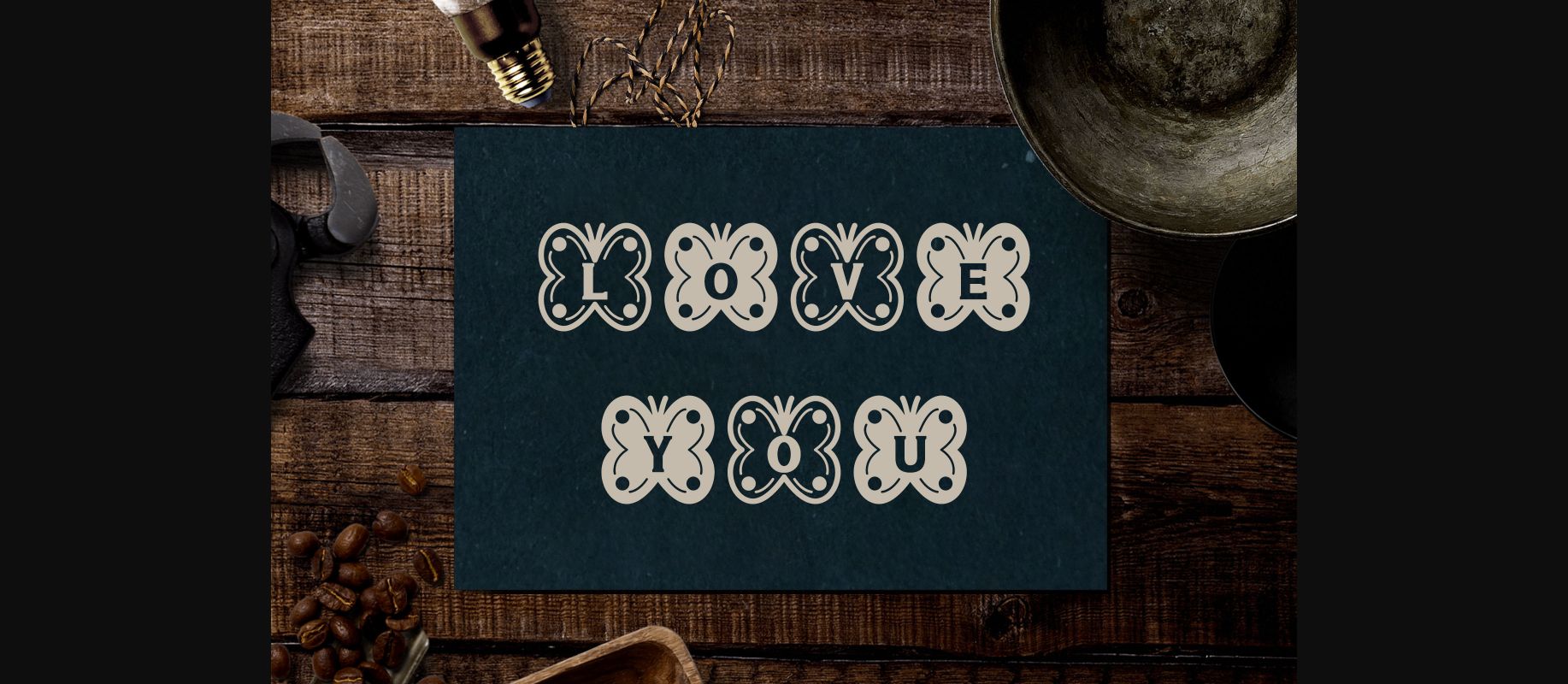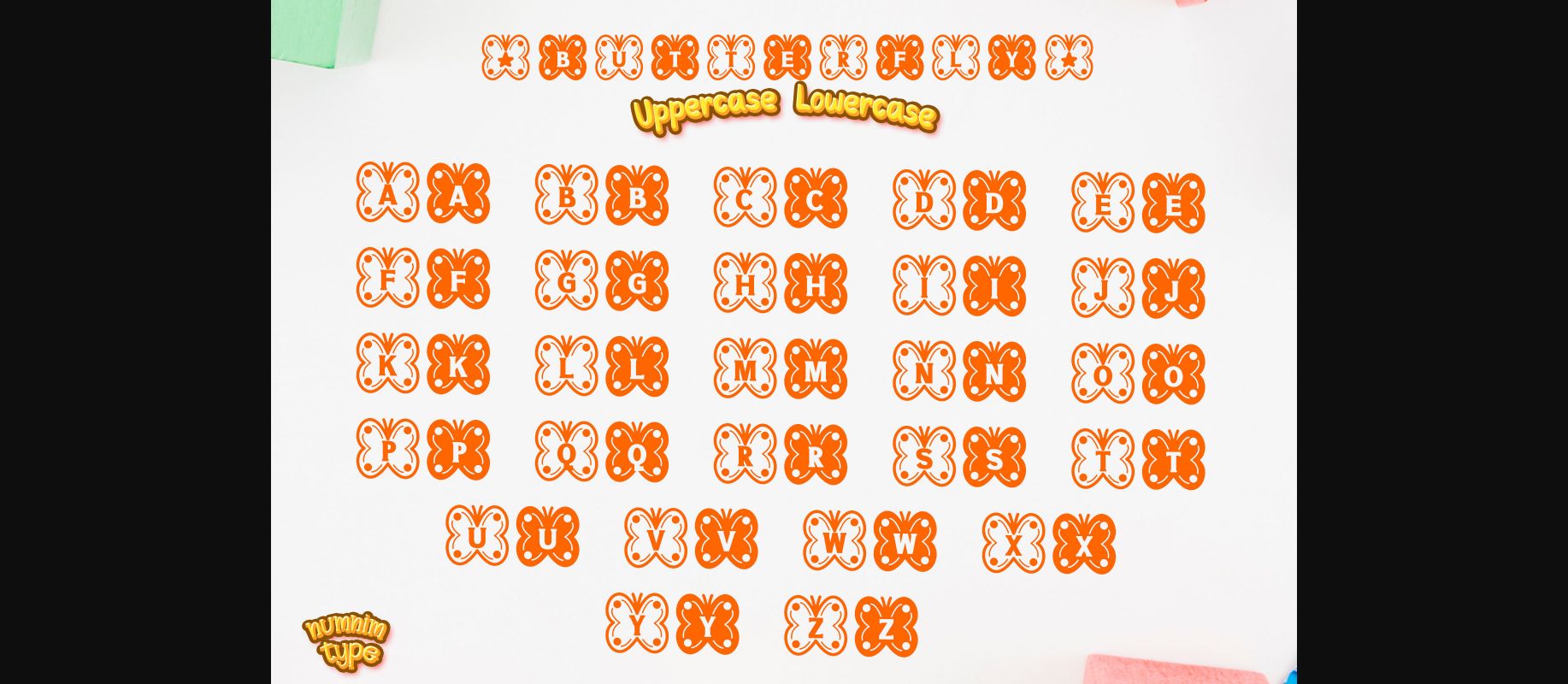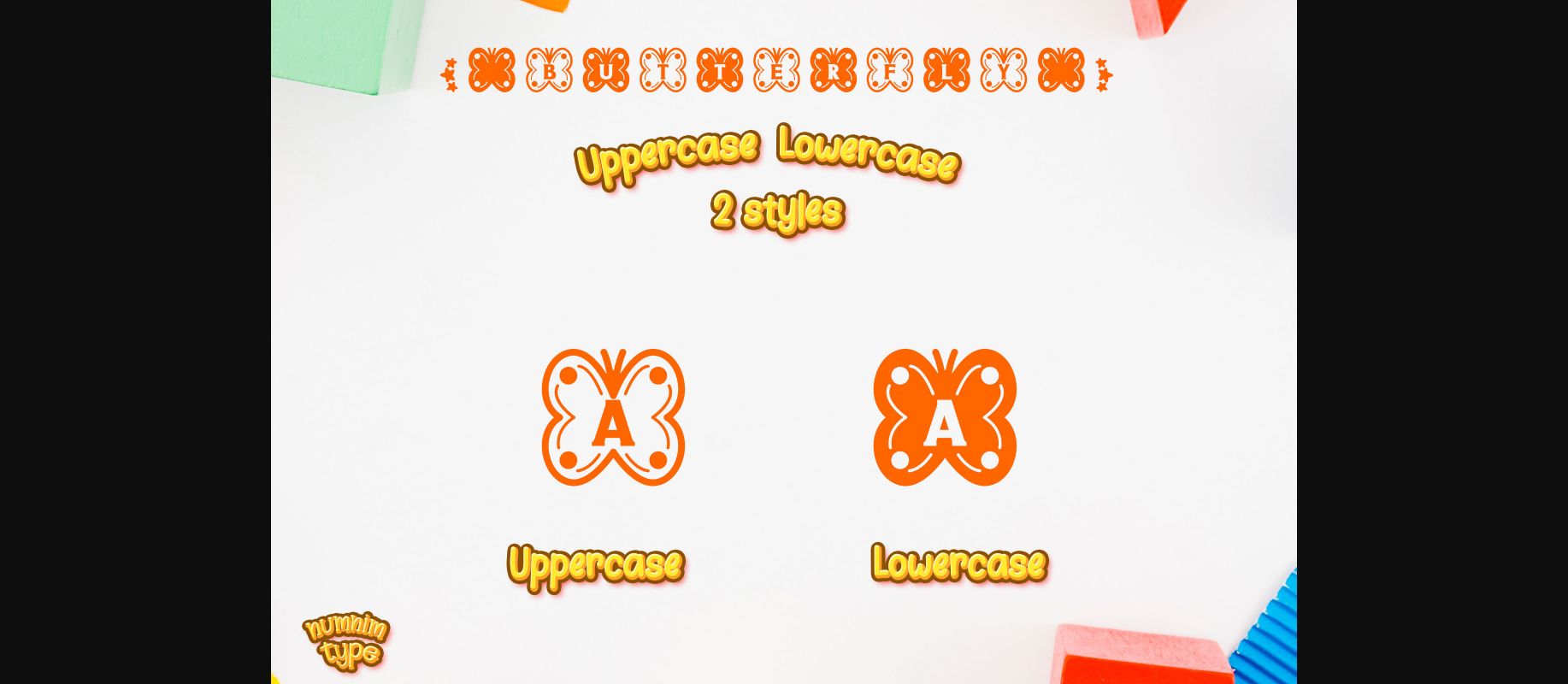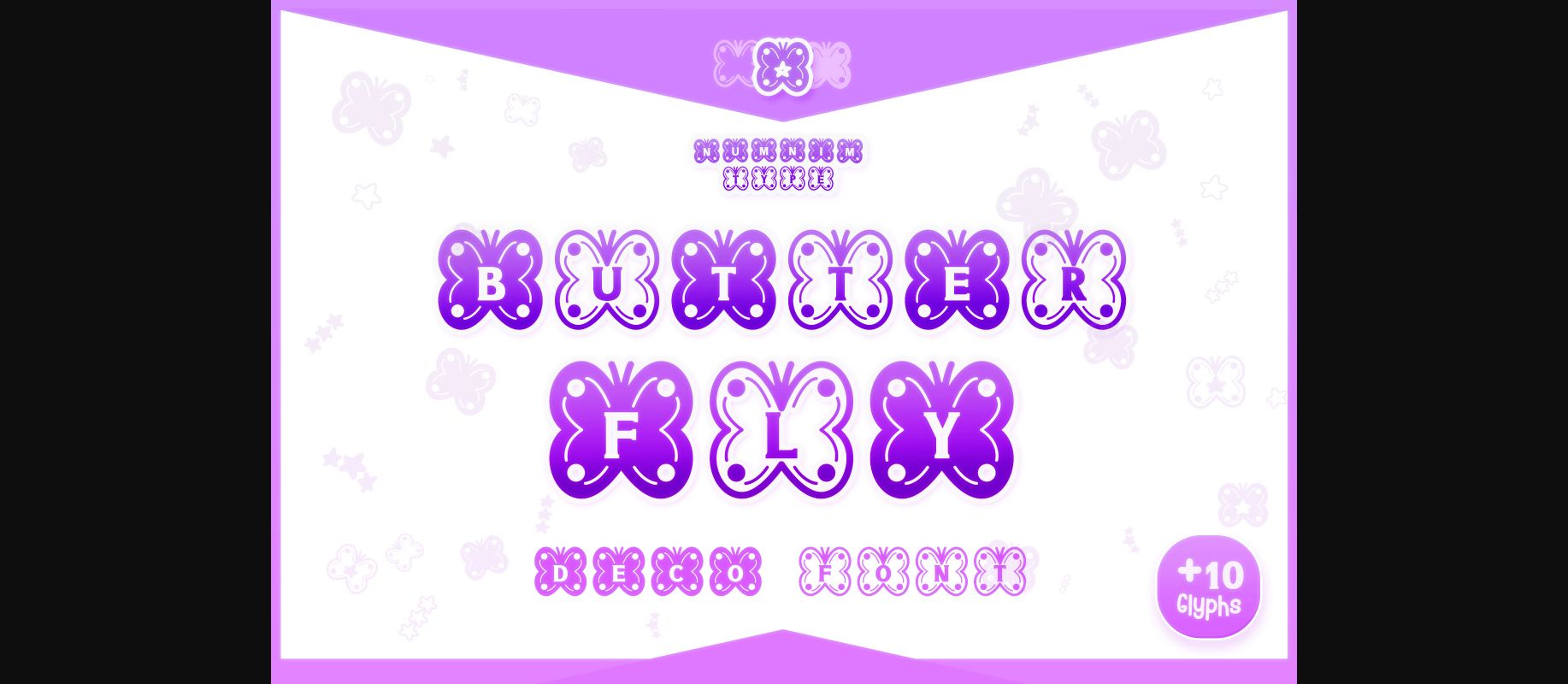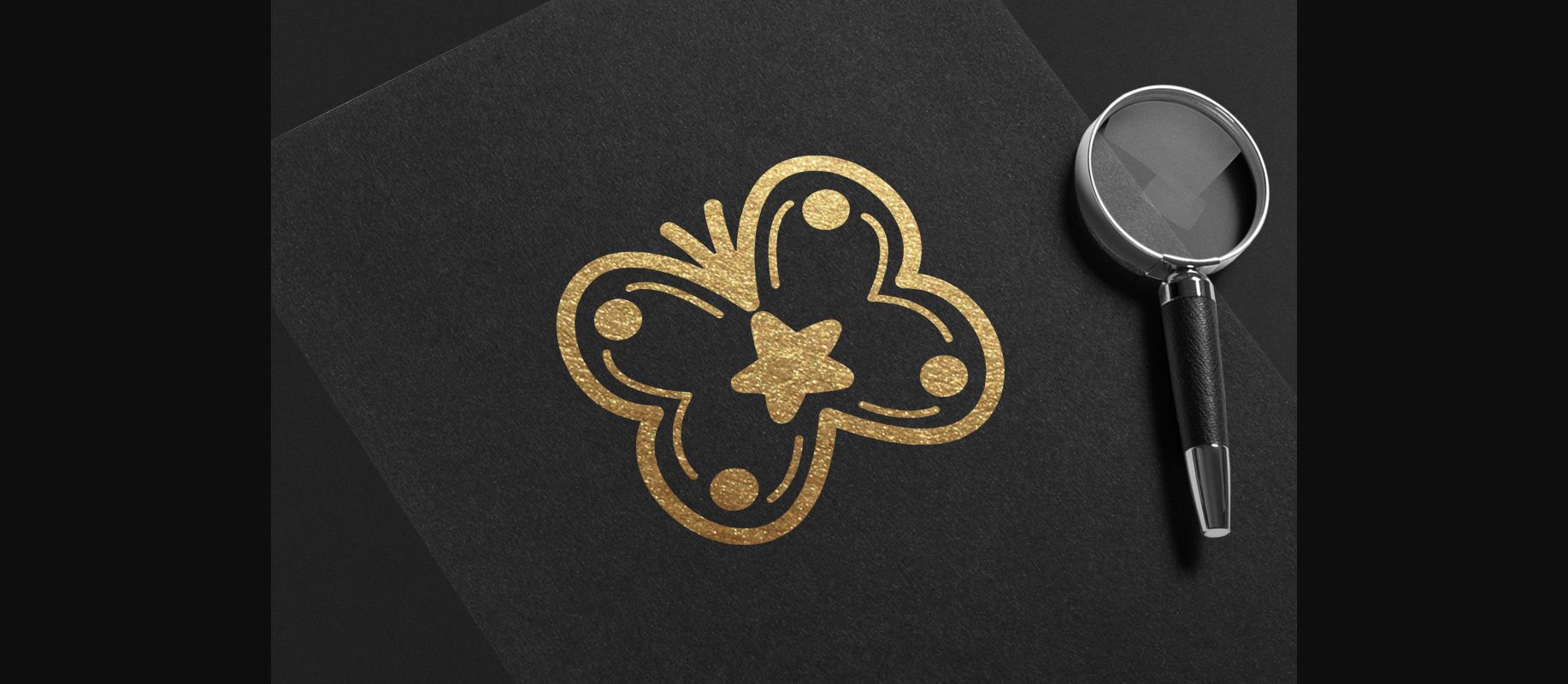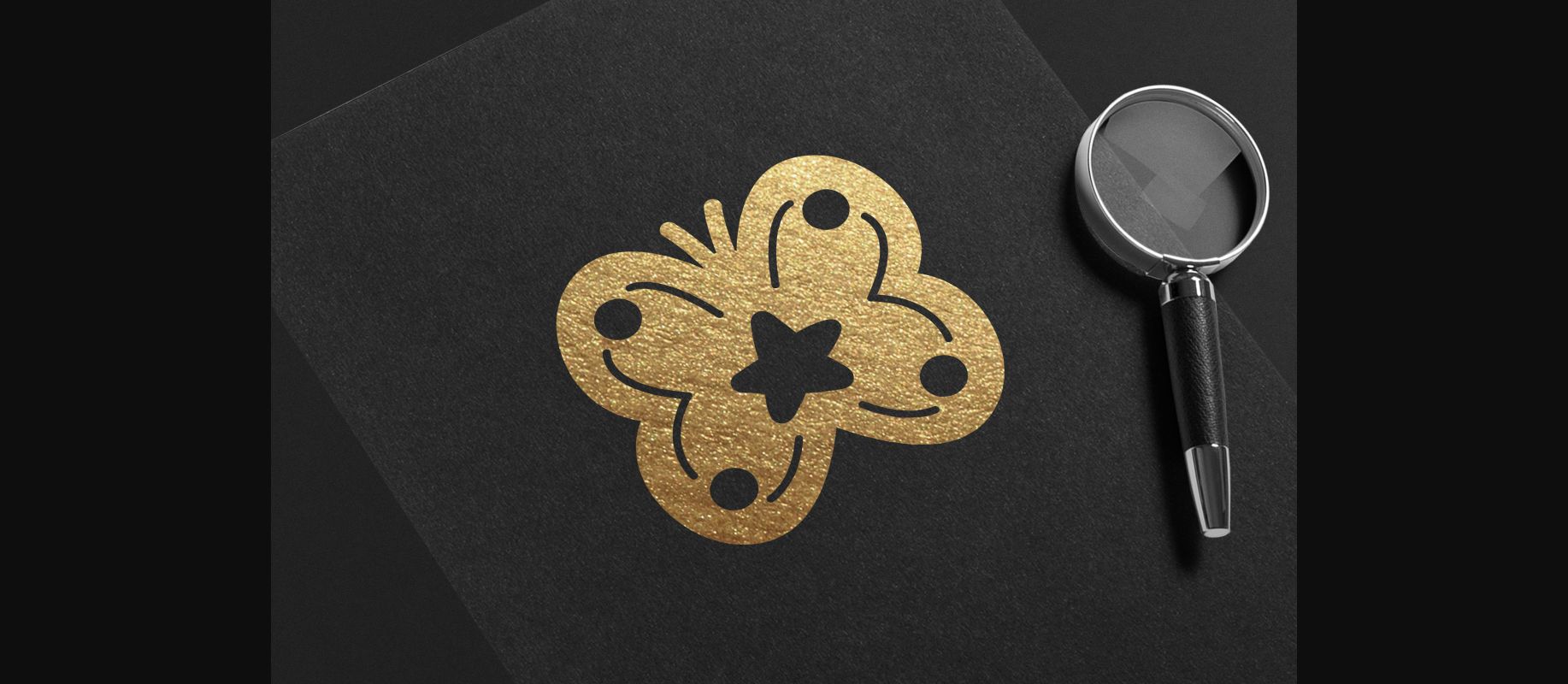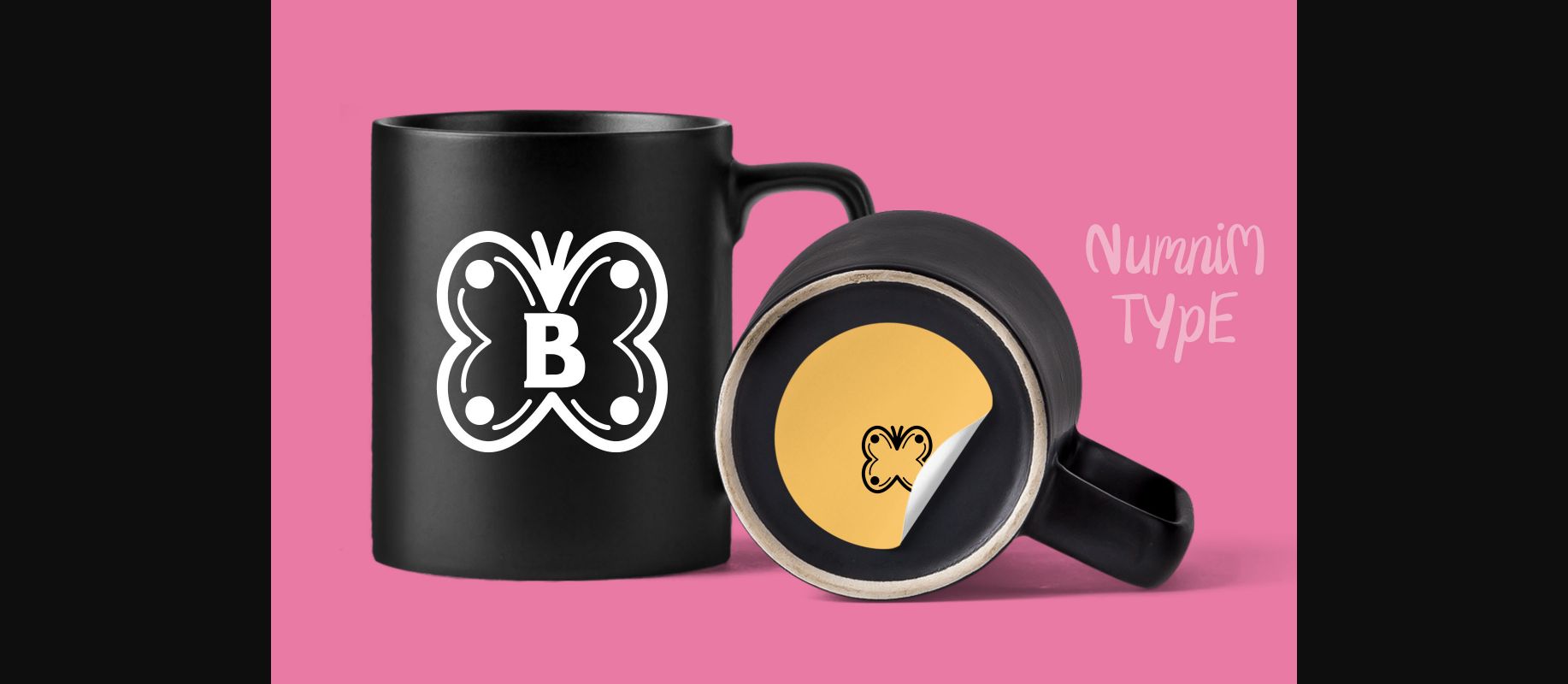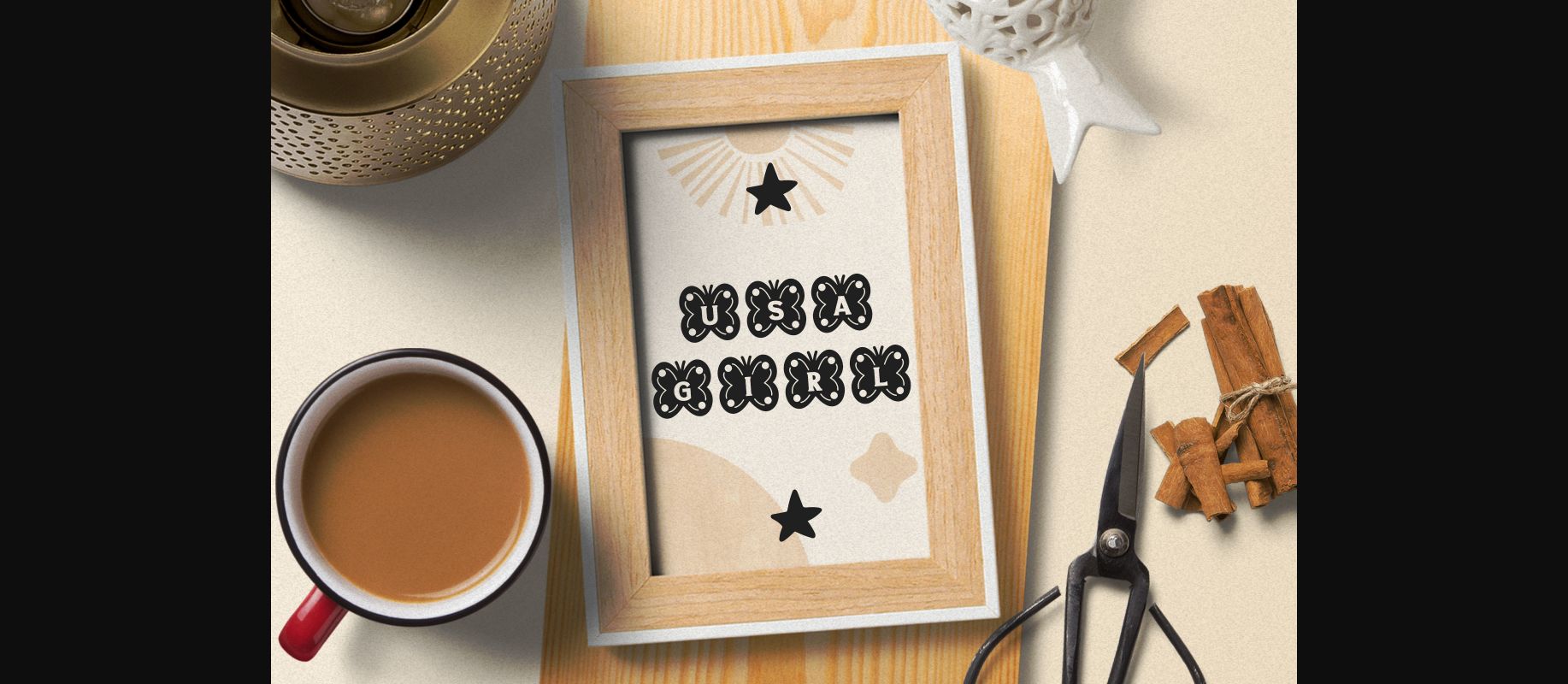
Butterfly is a cool and uniquely crafted decorative font. Its fun and playful characters make it the perfect font for stickers, ornaments, wedding cards, and many more!